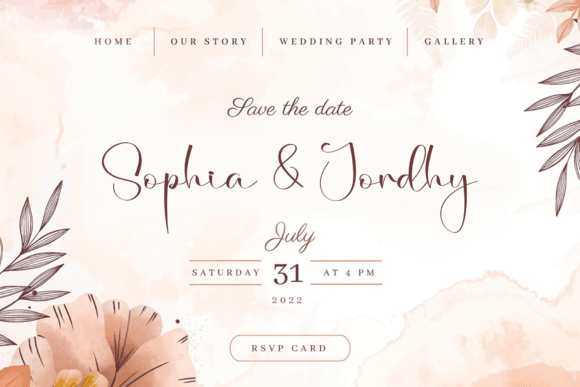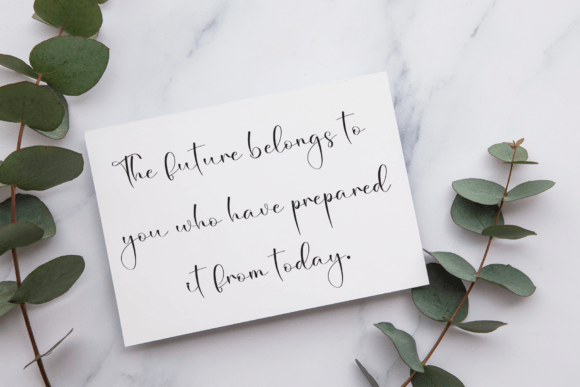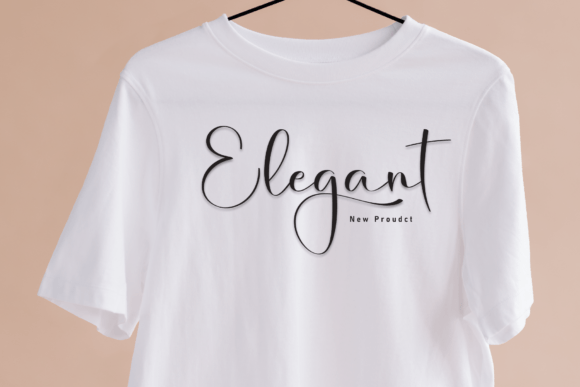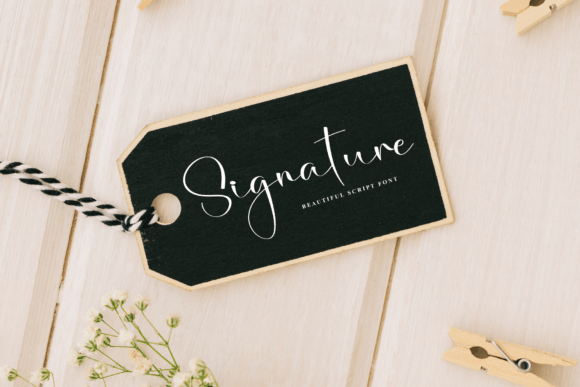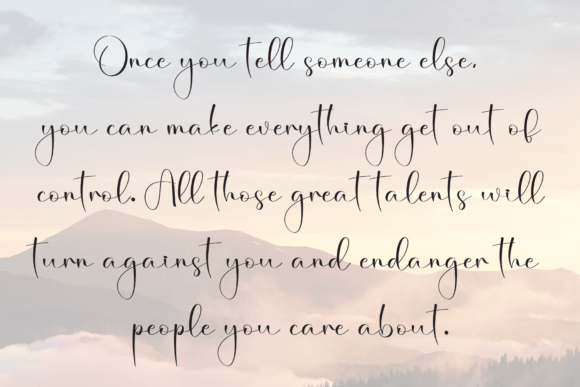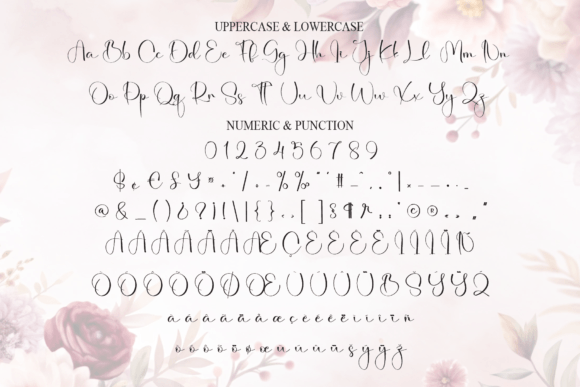
Introducing Angelina Font: The Perfect Handwritten Touch for Your Designs
Are you looking for a font that adds a personal and friendly touch to your designs? Look no further than Angelina Font, a charming handwritten font with smooth and flowing lines that will elevate your projects to the next level. In this article, we’ll explore the features and benefits of Angelina Font, and how it can be used to create stunning designs for invitations, greeting cards, logos, and more.
The Characteristics of Angelina Font
Angelina Font is a beautifully crafted handwritten font that boasts elegant curves and a smooth, flowing lines. Its simple yet stylish design makes it perfect for a wide range of applications, from formal invitations to casual greeting cards. The font’s charming and whimsical feel is sure to capture the attention of your audience and leave a lasting impression.
Why Choose Angelina Font?
- Personal and Friendly Touch: Angelina Font adds a warm and welcoming feel to any project, making it perfect for designs that require a personal touch.
- Elegant Curves: The font’s smooth and flowing lines make it ideal for creating elegant and sophisticated designs.
- Versatile: Angelina Font can be used for a wide range of applications, from invitations and greeting cards to logos and branding.
- Easy to Read: The font is clear and easy to read, making it perfect for designs that require a high level of legibility.
Using Angelina Font for Invitations and Greeting Cards
Angelina Font is perfect for creating beautiful and elegant invitations and greeting cards. Its smooth and flowing lines make it ideal for formal and informal designs, and its charming feel is sure to capture the attention of the recipient. Here are a few ideas for using Angelina Font for invitations and greeting cards:
- Wedding Invitations: Use Angelina Font to create beautiful and elegant wedding invitations that set the tone for the big day.
- Birthday Cards: Add a personal touch to birthday cards with Angelina Font, making them extra special for the recipient.
- Holiday Cards: Use Angelina Font to create festive and fun holiday cards that capture the spirit of the season.
Using Angelina Font for Logos and Branding
Angelina Font is also perfect for creating logos and branding materials that require a personal and friendly touch. Its elegant curves and smooth lines make it ideal for creating sophisticated and professional designs. Here are a few ideas for using Angelina Font for logos and branding:
- Business Logos: Use Angelina Font to create a unique and memorable business logo that sets your brand apart.
- Product Labels: Add a personal touch to product labels with Angelina Font, making them more appealing to customers.
- Social Media Graphics: Use Angelina Font to create engaging and shareable social media graphics that capture the attention of your audience.
Angelina Font is a charming handwritten font that adds a personal and friendly touch to any design. Its elegant curves and smooth lines make it perfect for invitations, greeting cards, logos, and more. With its versatility, ease of use, and charming feel, Angelina Font is sure to become a favorite among designers and crafters. So why wait? Download Angelina Font today and start creating stunning designs that capture the attention of your audience.